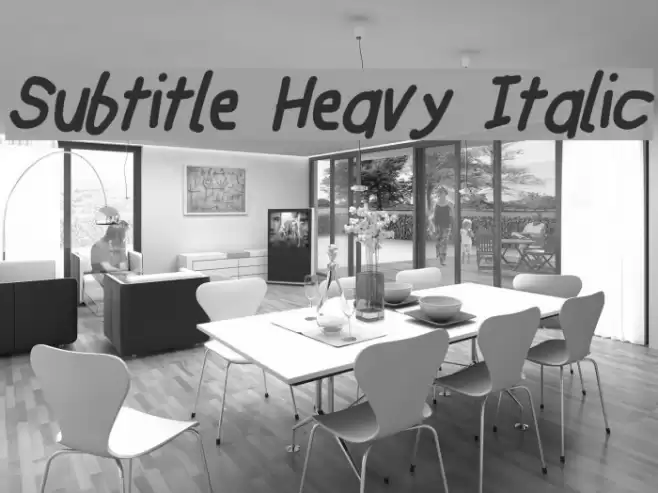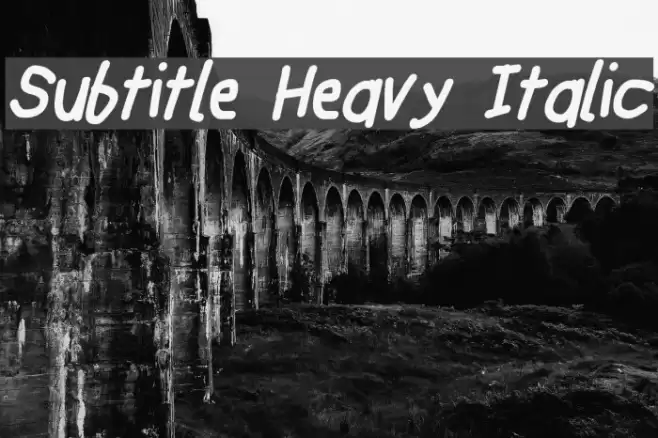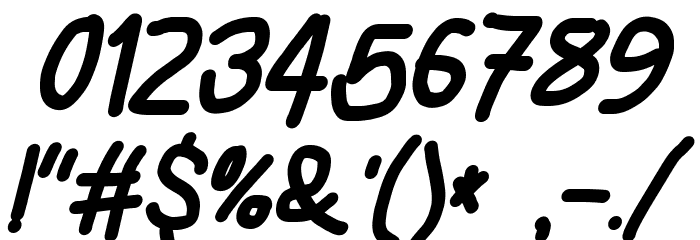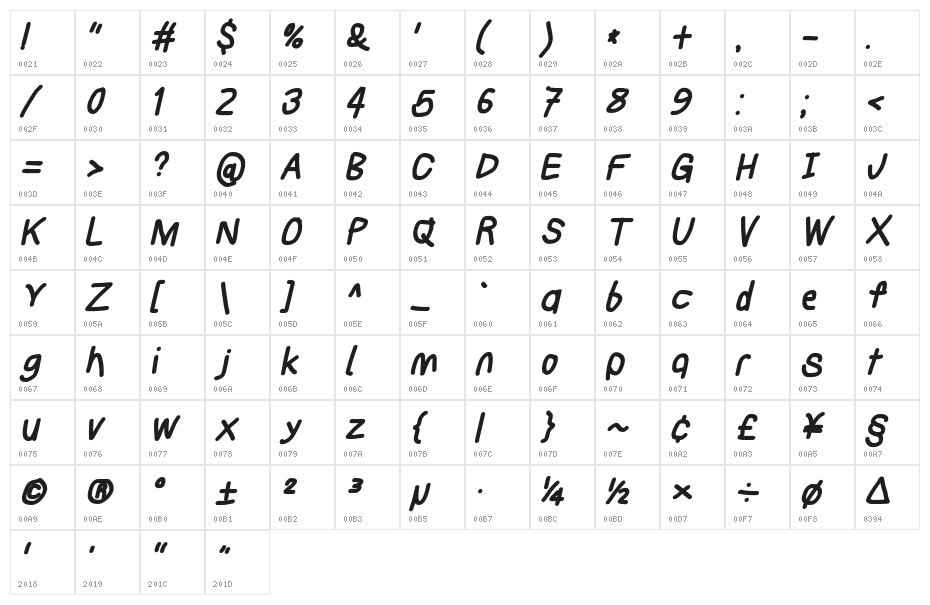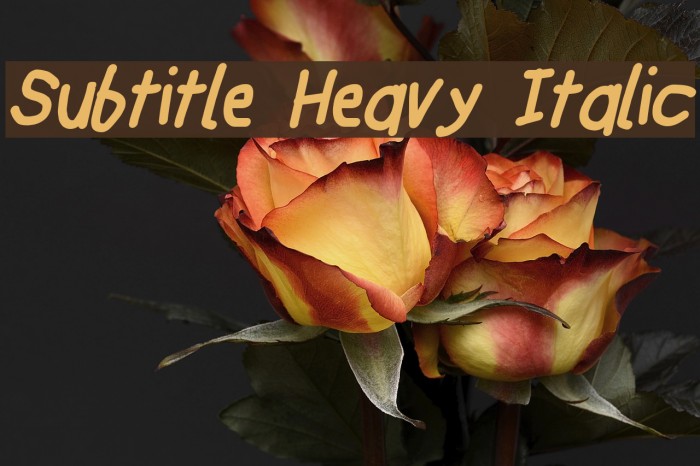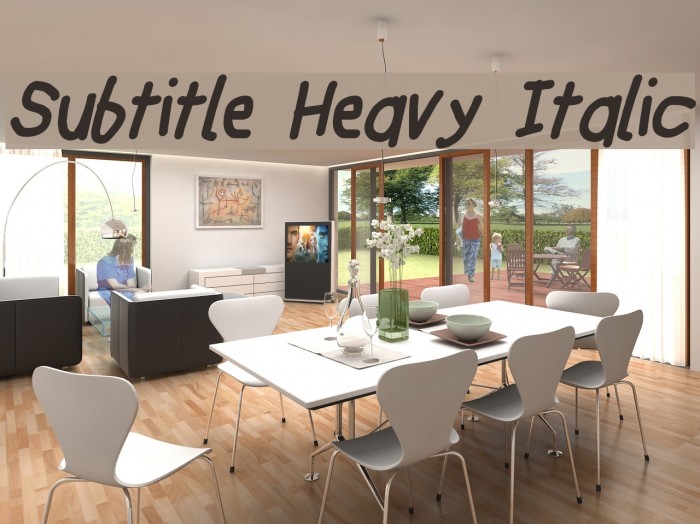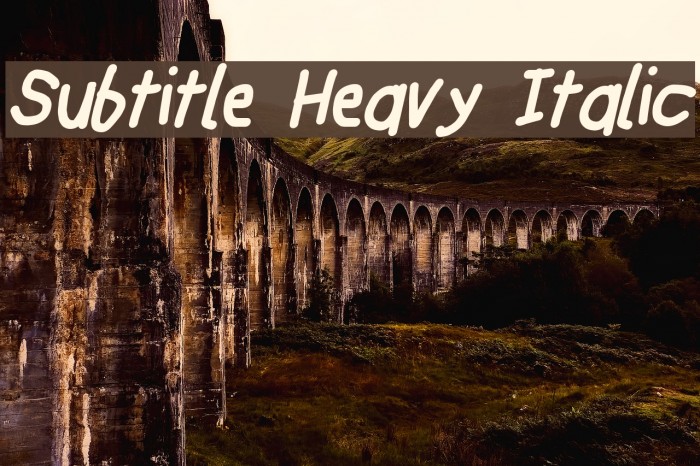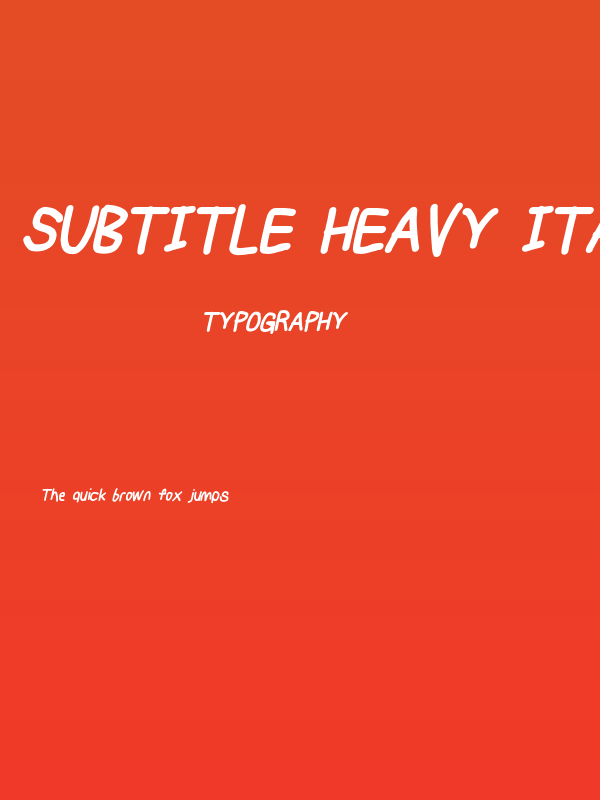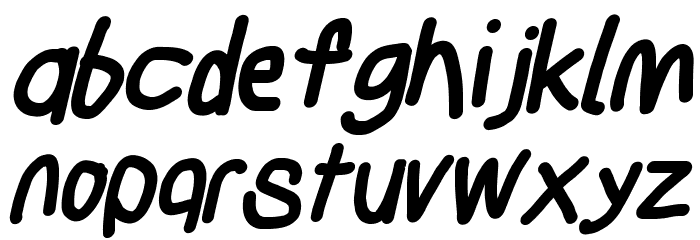
Subtitle Heavy Italic Font
Subtitle Heavy Italic Description
This font features a bold and dynamic handwritten style with a noticeable italic slant, giving it a sense of movement and energy. The characters are thick and rounded, providing a friendly and approachable appearance. The uppercase and lowercase letters maintain a consistent style, with smooth curves and a slightly informal touch. The numerals and special characters are designed to match the overall aesthetic, ensuring uniformity across all glyphs. This font is ideal for projects that require a personal and engaging touch, such as posters, invitations, or branding materials.
A bold, italic, handwritten font with a dynamic and friendly style from Uncategorized fonts.
- Proposed Projects: Ideal for posters, invitations, branding, and any project needing a personal touch.
- Use Case: Headlines, Logos, Invitations